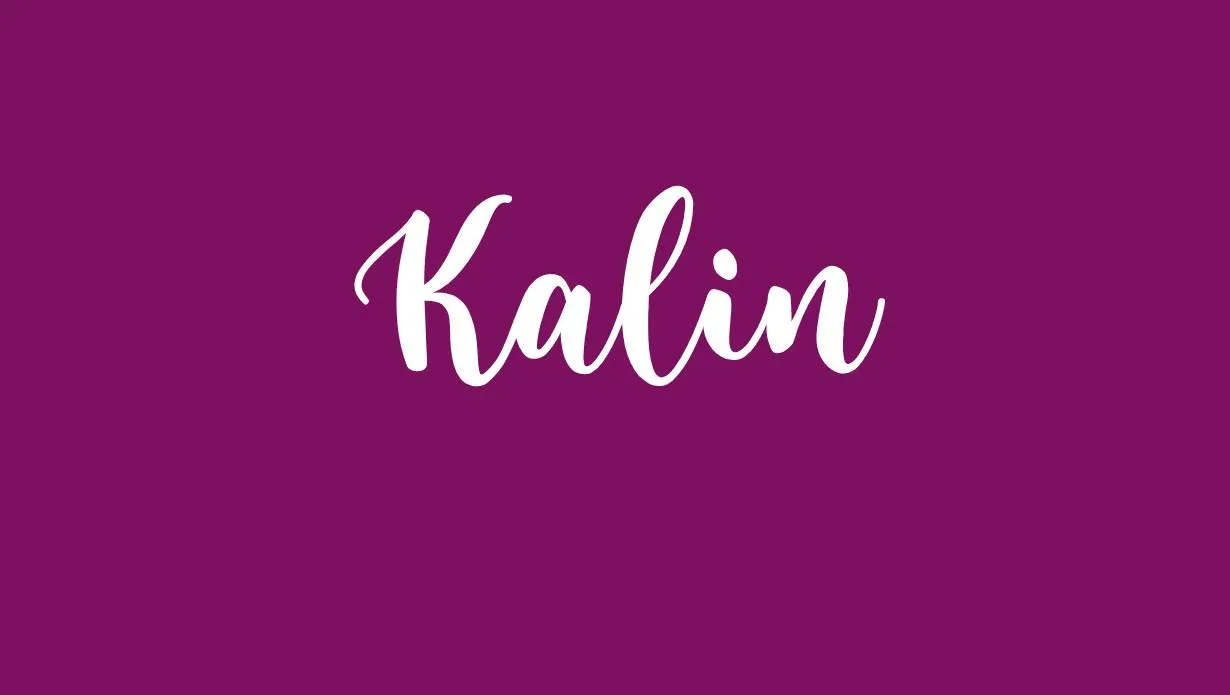
Kalin font is a beautifully crafted handwritten style that evokes a personal and artistic feel. It’s often chosen for special occasions, such as invitations, greeting cards, and personalized messages, due to its unique and flowing script.
| Name | Kalin Font |
| Designer | Carla Oleta |
This font’s charm lies in its ability to add warmth and individuality to designs, giving a personal touch to various projects. Additionally, it’s a popular choice in branding for businesses seeking a distinctive and personable identity, imparting a sense of approachability and friendliness to their communication materials.